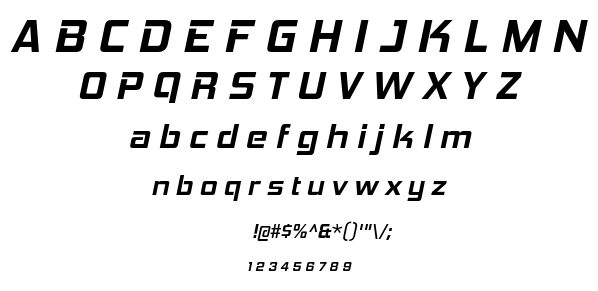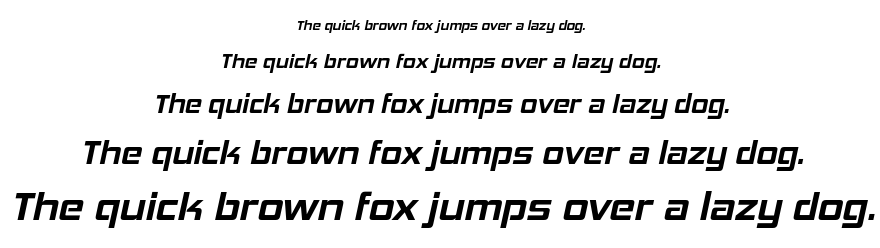
Hemi Head is a square sans font family, sure-footed and precise. Don’t forget to read the files inside the zip for details. Updated in 2012. Hemi Head Bold Italic is part of a larger font family available at various commercial font vendors.